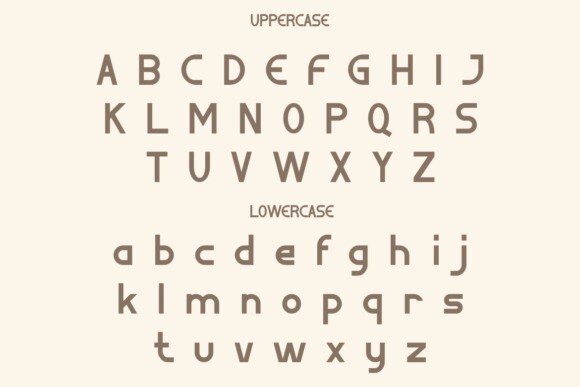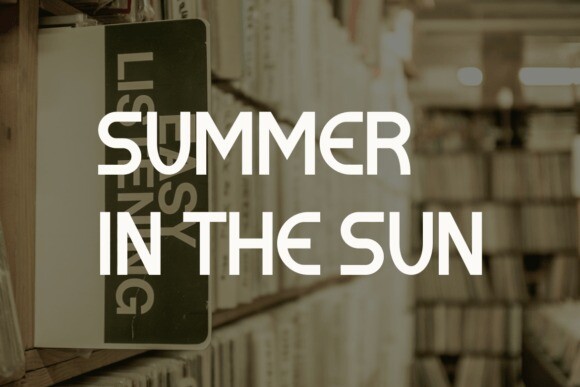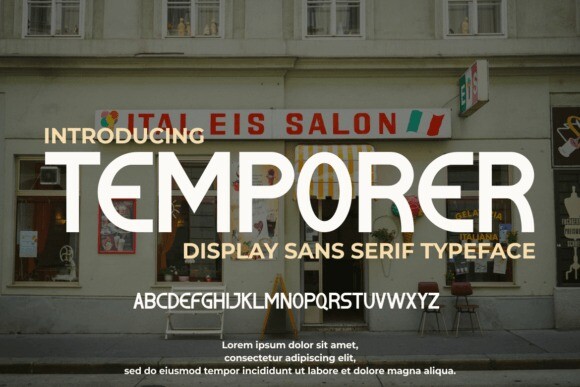
Temporer Font
Temporer Font is a cool and modern sans serif font. It has a clean, thin, and smooth vibe and it will be a hit for any design that you want to add it to.